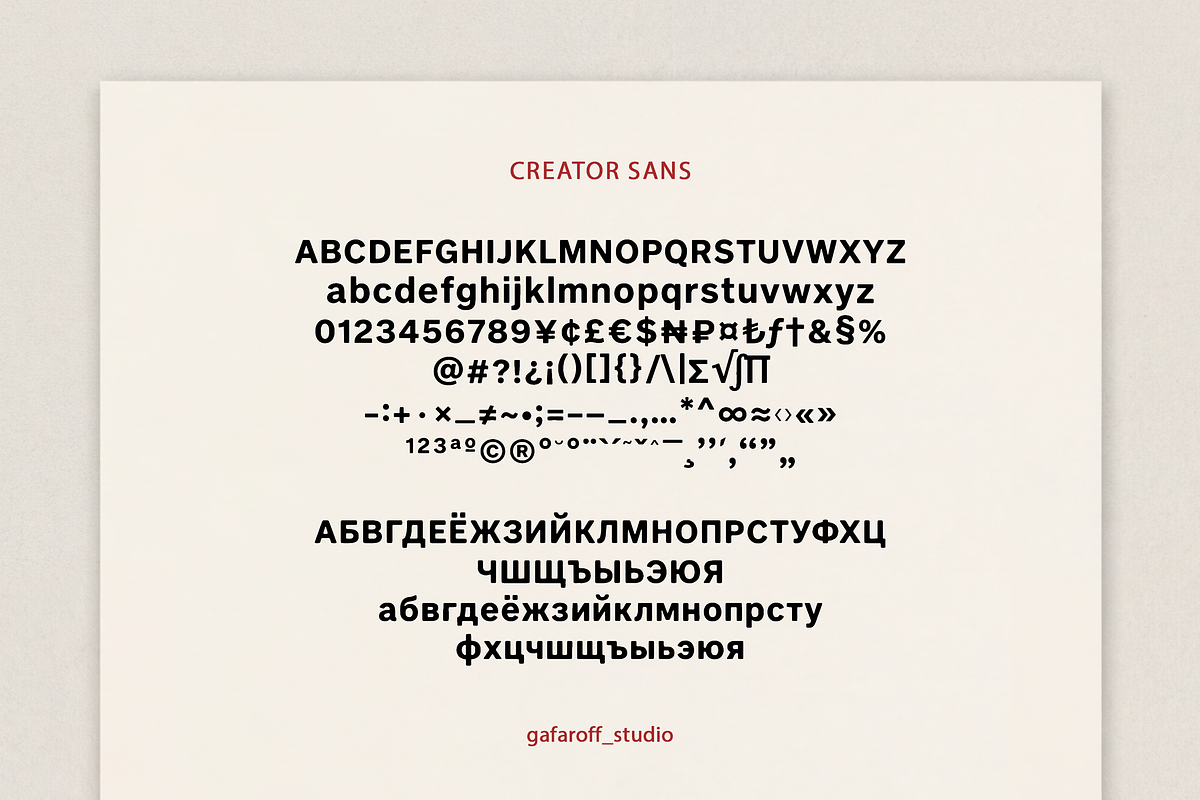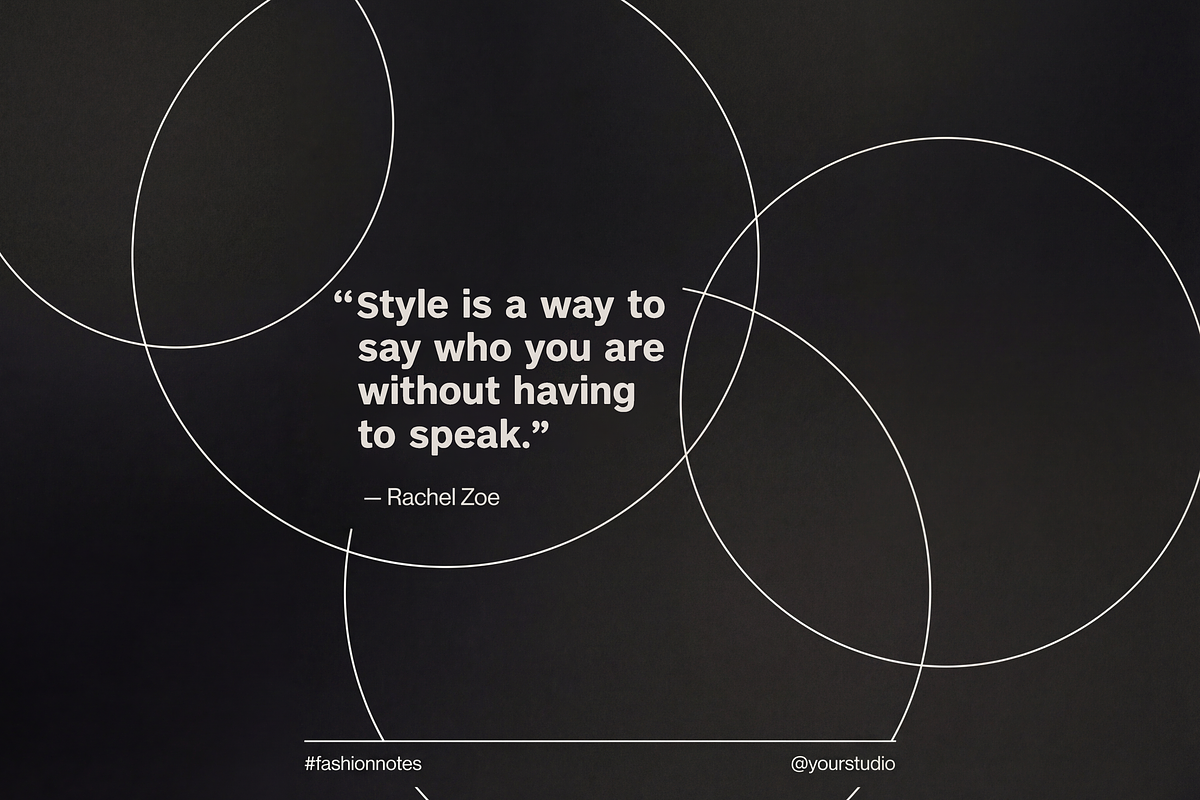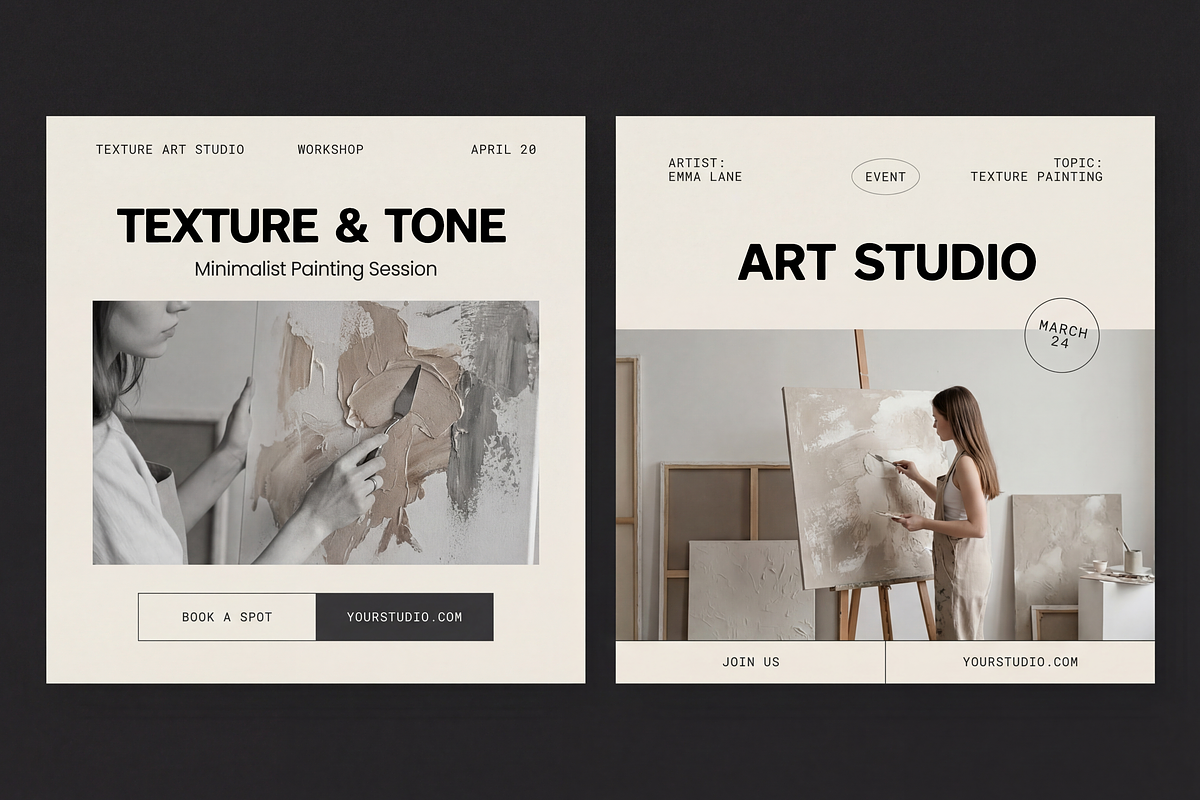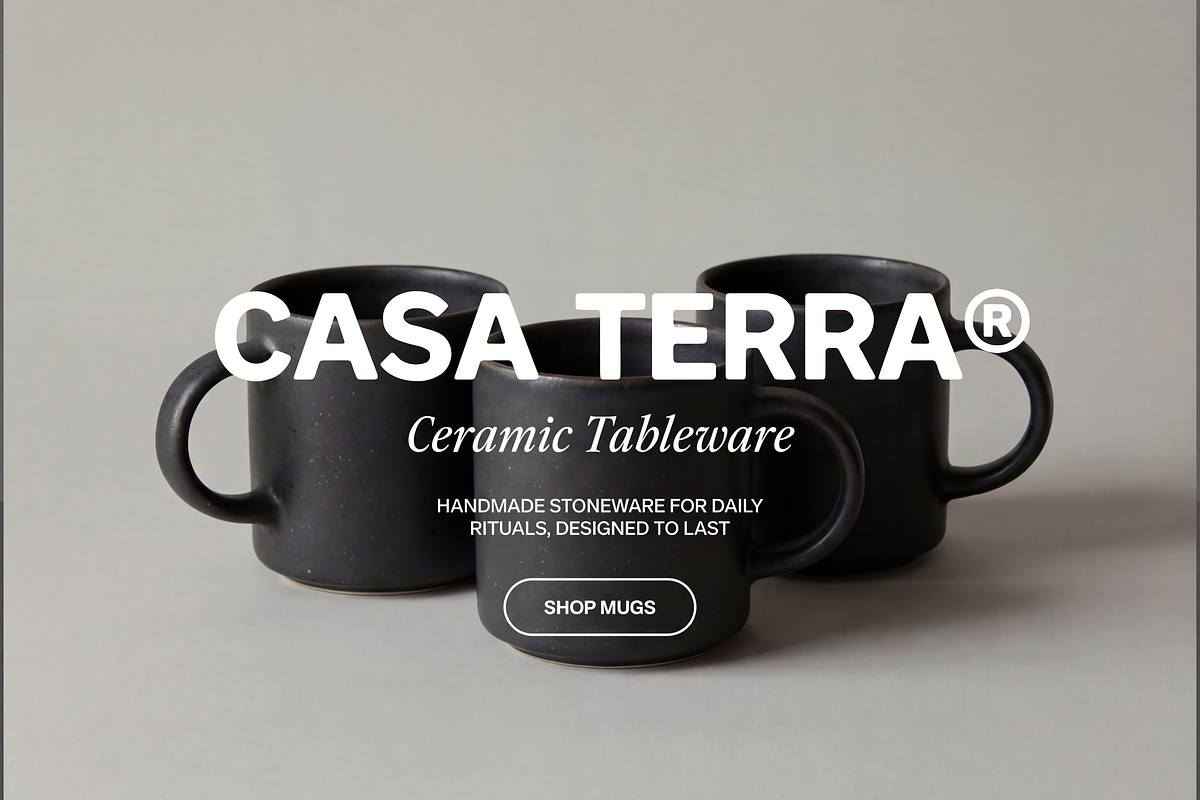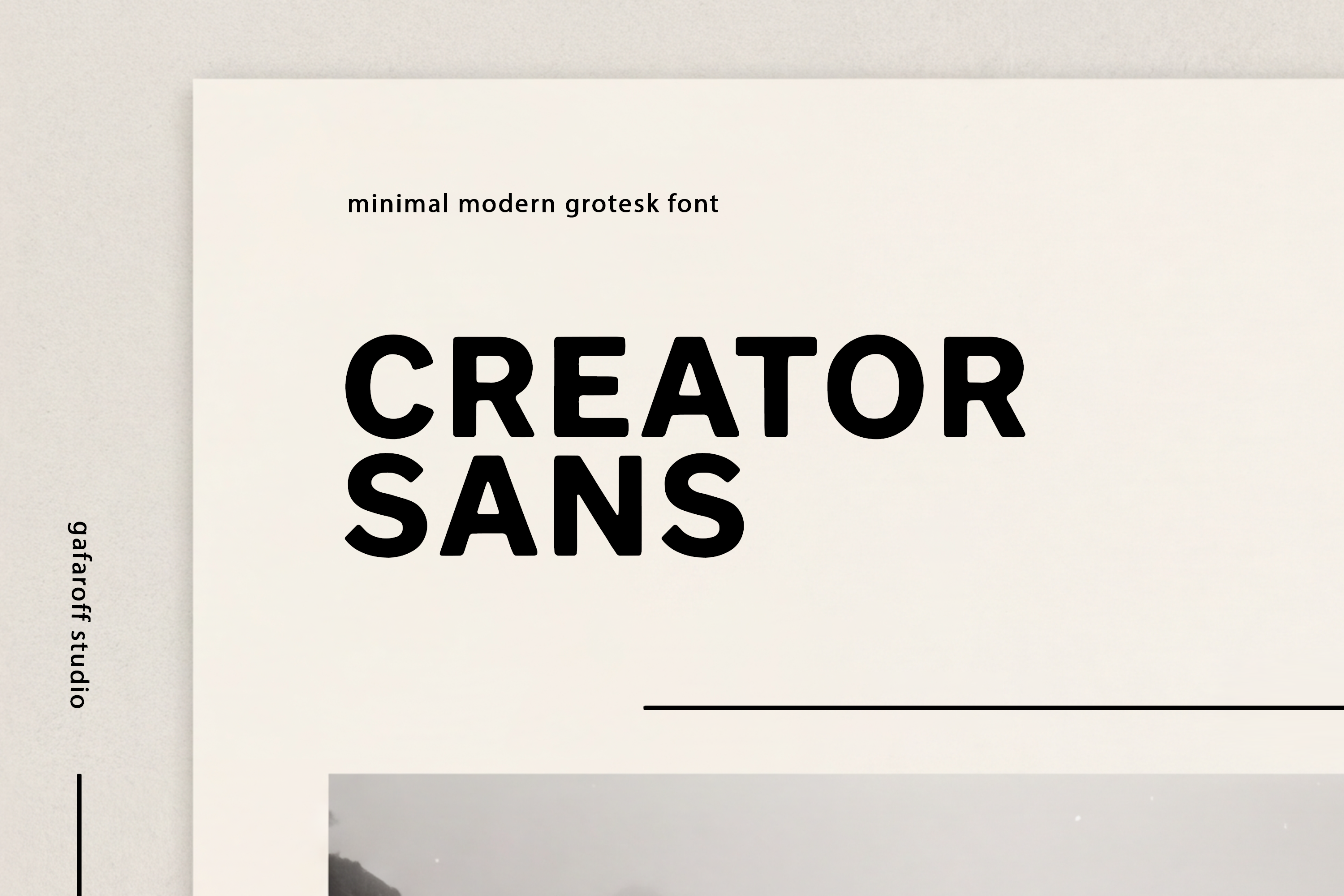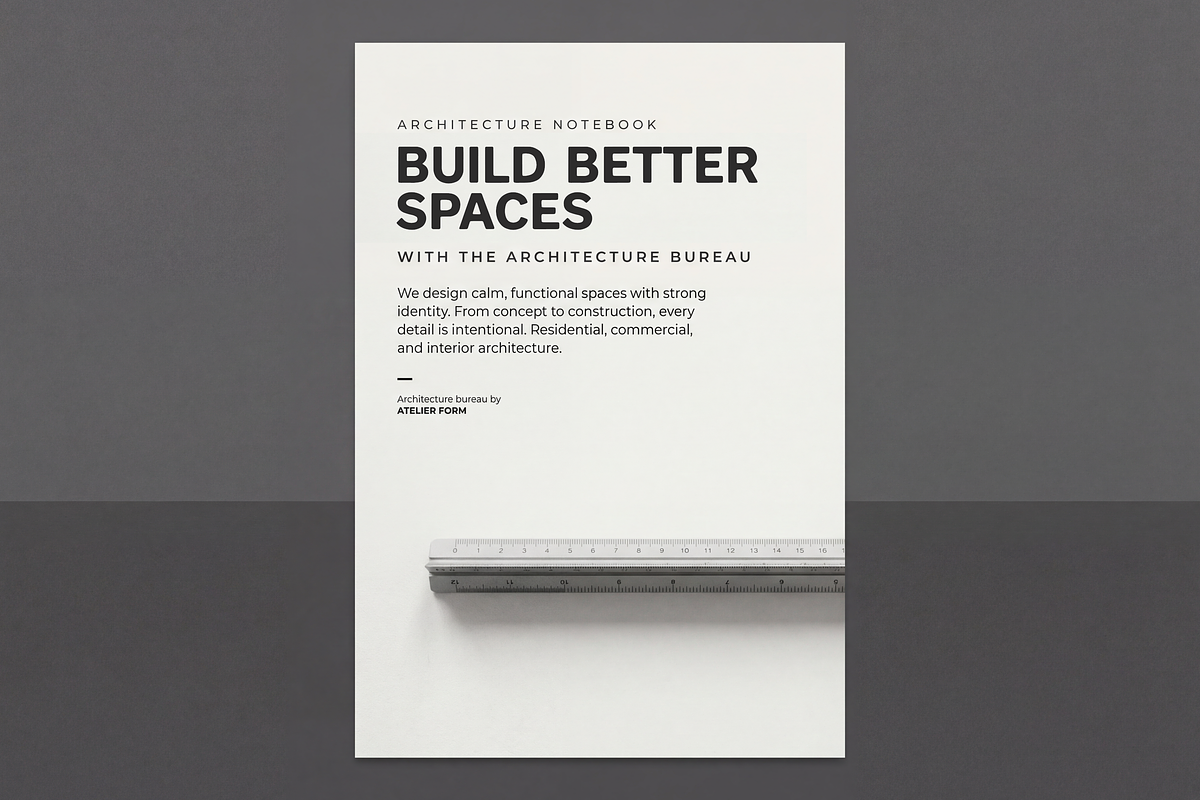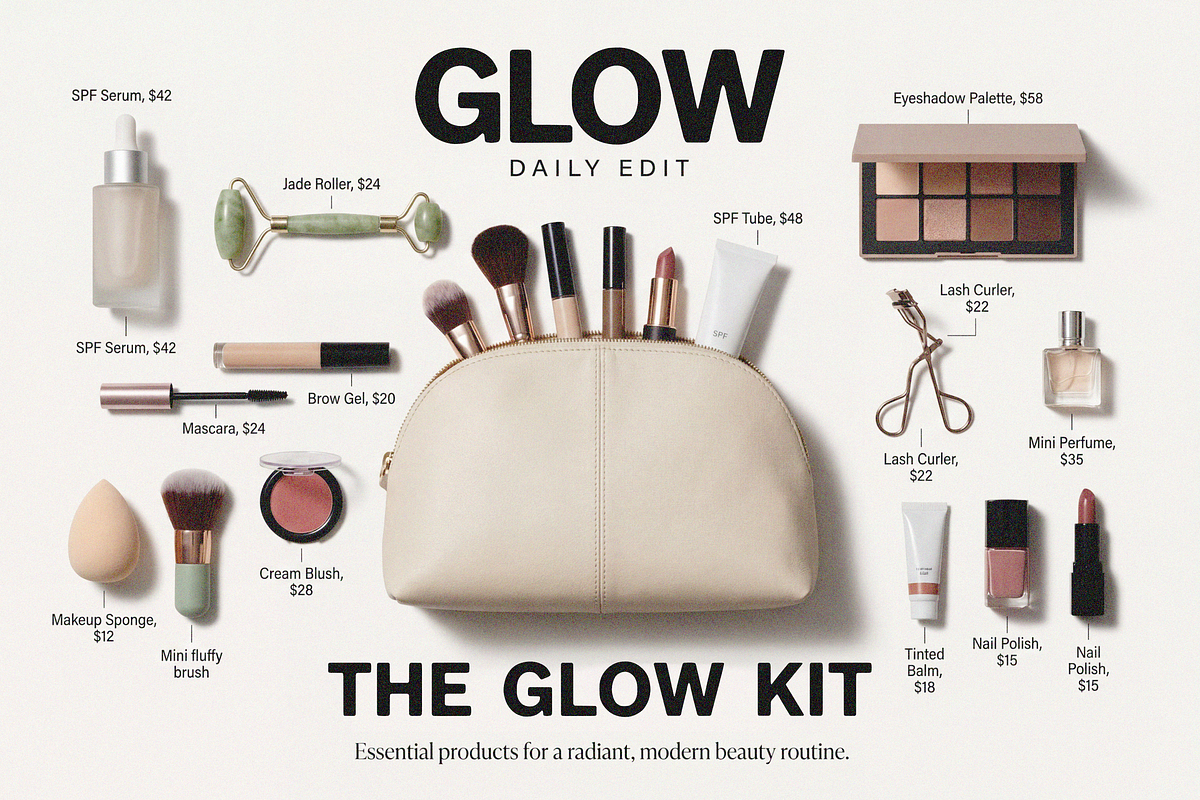
Creator Sans | Soft Minimalist Font
Creator Sans is a modern minimalist sans-serif with a soft, clean feel. It looks stylish and current, reads easily on screens, and feels confident in headlines.
Creator Sans is made for creators, designers, and brands who love clarity, fashion aesthetics, and modern minimalism. It works beautifully for social media, captions, posters, branding, and editorial layouts.
- Social media (Reels, TikTok, YouTube, Shorts)
- Headlines and bold hooks
- Captions and short text
- Branding and visual identity
- Posters and editorial design
Language support:
- English
- Cyrillic